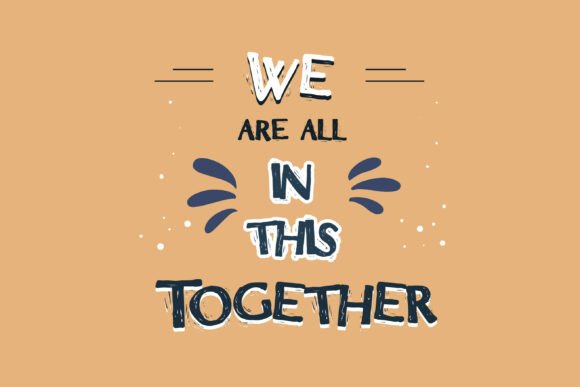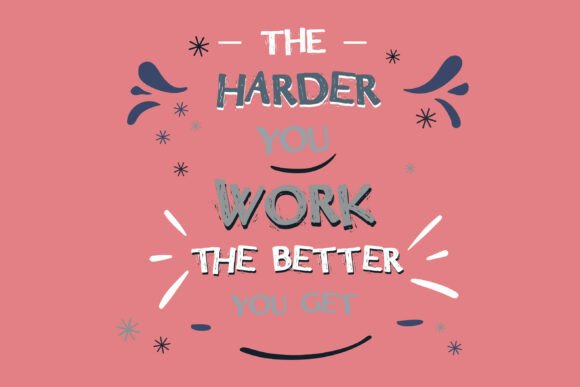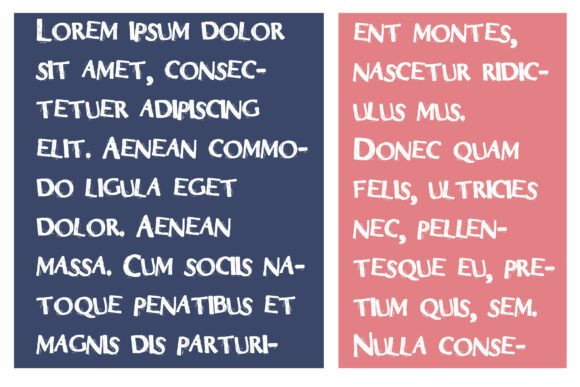
The Story Behind Fragmento Font
Have you ever been in the middle of a design project, pouring your heart and soul into it, only to get stuck on one tiny detail – like finding the perfect font? I certainly have! It was during one of those moments, working on a branding project for a craft brewery, that I stumbled upon Fragmento Font. This rustic display sans immediately caught my eye with its unique, weathered aesthetic that seemed to scream “craftsmanship” and “authenticity.” ✨
A First Impression: What Makes Fragmento Special
Fragmento Font is more than just a font – it’s an experience. It embodies a “weathered-and-wonderful” soul with its sturdy, hand-cut letterforms, rhythmic, distressed “ink-stamp” textures, and irregular edges. This distinctive look bridges the gap between traditional woodblock printing and modern artisanal branding, making it perfect for projects that require a touch of rustic charm and a lot of character.
An Honest Review of Fragmento Font
- ✅ Unique Texture: The distressed texture gives it a one-of-a-kind look that’s hard to replicate with other fonts.
- ✅ Versatility: Despite its rustic feel, Fragmento works surprisingly well for both digital and print projects.
- ✅ Readability: Even at smaller sizes, the font remains clear and legible, which is a huge plus.
- ✅ OpenType Features: It comes with a range of OpenType features, including stylistic alternates and glyphs, which allow for a lot of creative freedom.
- ⚠️ Not Suitable for Body Text: Due to its distressed nature and heavy structural weight, Fragmento is best used for headlines and titles rather than body text.
- ⚠️ Requires Thoughtful Pairing: Because of its strong personality, Fragmento needs to be paired carefully with other fonts to avoid visual clash.
- 🤔 Learning Curve: New users might need some time to get accustomed to using its OpenType features effectively.
Alternatives to Fragmento Font
The Backstory of Fragmento Font
Fragmento was inspired by the artisanal resurgence in modern design. Its creator sought to capture the essence of handcrafted goods and the nostalgia associated with traditional printing techniques. The result is a font that feels both timeless and contemporary, perfect for brands looking to convey a sense of craftsmanship and authenticity.
Q: What makes Fragmento suitable for craft brewery identities?
A: Fragmento’s rustic, weathered aesthetic and strong structural weight make it perfect for craft brewery identities, evoking a sense of tradition and authenticity.
Q: Can I use Fragmento for digital projects?
A: Absolutely! Fragmento works well for digital projects, especially when you want to add a touch of rustic charm to your design.
Q: Does Fragmento support OpenType features?
A: Yes, Fragmento comes with a range of OpenType features, including stylistic alternates and glyphs, allowing for a lot of creative freedom.
Q: Is Fragmento difficult to pair with other fonts?
A: While Fragmento has a strong personality, it can be paired effectively with other fonts. The key is to choose complementary fonts that don’t clash with its rustic feel.